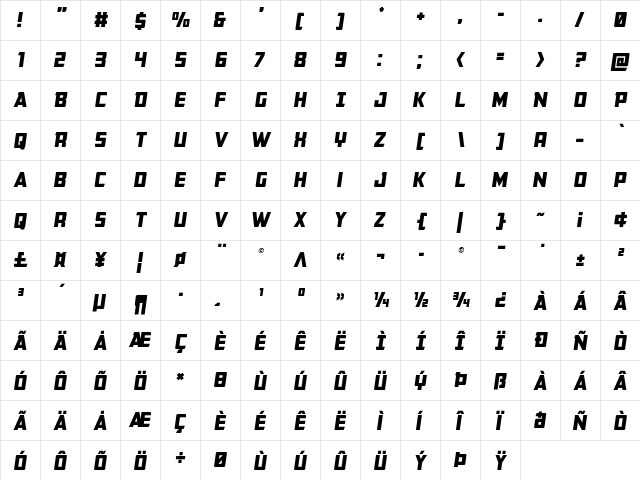
Buchanan Semi-Italic Semi-Italic
Design Context for Buchanan Semi-Italic Typeface
Buchanan Semi-Italic takes a measured approach to typography — its balanced proportions and neutral character make it a reliable workhorse for both digital and print work. The dynamic lean of this cut emphasises speed and emphasis in any layout.
Pro Tip: Use Buchanan Semi-Italic for emphasis, pull quotes, and subheadings where its slanted energy can add rhythm to the layout.